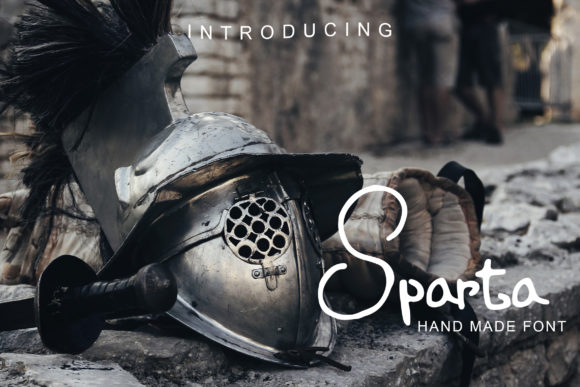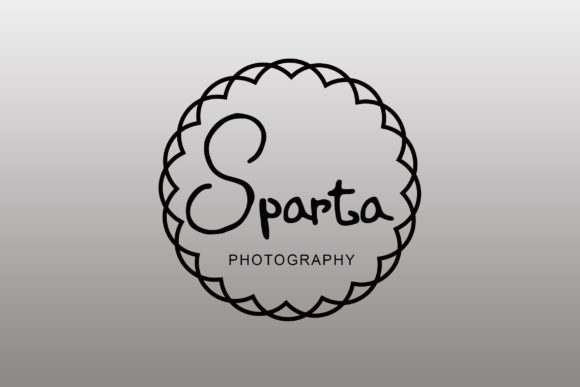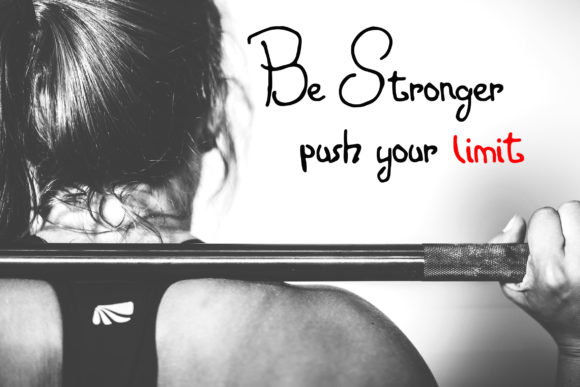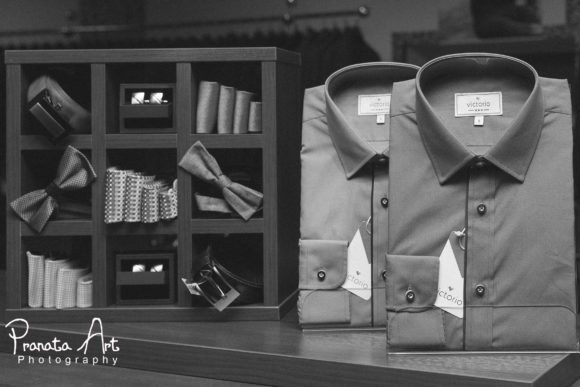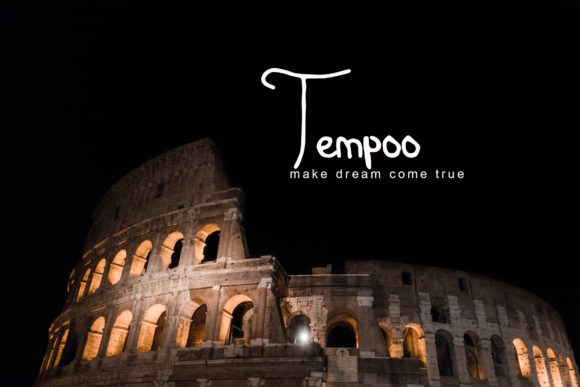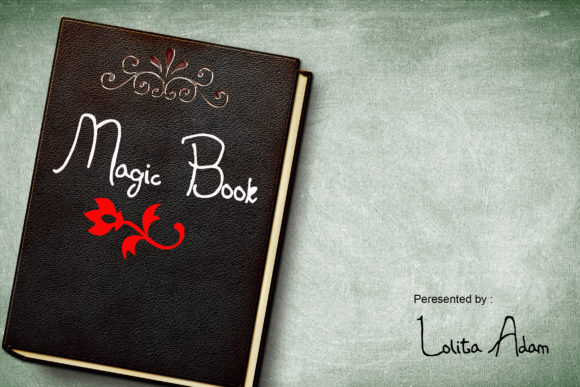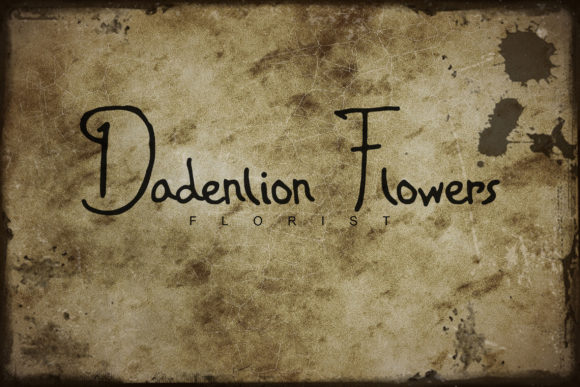
HomeScript FontsSparta Font Script Fonts Sparta Font FacebookXPinterestWhatsApp Sparta Font Poster 2 Sparta Font Poster 3 Sparta Font Poster 4 Sparta Font Poster 5 Sparta Font Poster 6 Sparta Font Poster 7 About Sparta Font Sparta is a unique script with a unique charm! Get inspired by its playful charm. DOWNLOAD ON CREATIVE FABRICAThis font is sold and delivered by Creative Fabrica. Font Canyon may earn a commission if you buy through this link. People also explored Sea Turtle Font Don Julio Oijo Font Loved Font The Better Font Hoppipola Font Butterfly Font Ramhesy Script Font Angelinn Font 356 0 TagsSparta Font Previous articleBrighton FontNext articleZero Panzer Font LEAVE A REPLY Cancel reply Comment: Please enter your comment! Name:* Please enter your name here Email:* You have entered an incorrect email address! Please enter your email address here Website: Save my name, email, and website in this browser for the next time I comment. Personal Use Free Fibon Personal Use Free Read more about this font Awesome Snowflakes Font Personal Use Free Read more about this font Squariess Personal Use Free Read more about this font Deling Personal Use Free Read more about this font BLOG Elegant Wedding Invitation Fonts – Handwritten & Script Fonts Elegant Wedding Invitation Fonts Your wedding day is one of the most important moments of your life, and every detail matters—including your invitation design. Our... Free Fonts Risk: Why Free Fonts Can Be Dangerous for Designers Best Fonts for T-Shirt Design – Top 2025 Picks Modern Sans-Serif Fonts That Brands Love in 2025